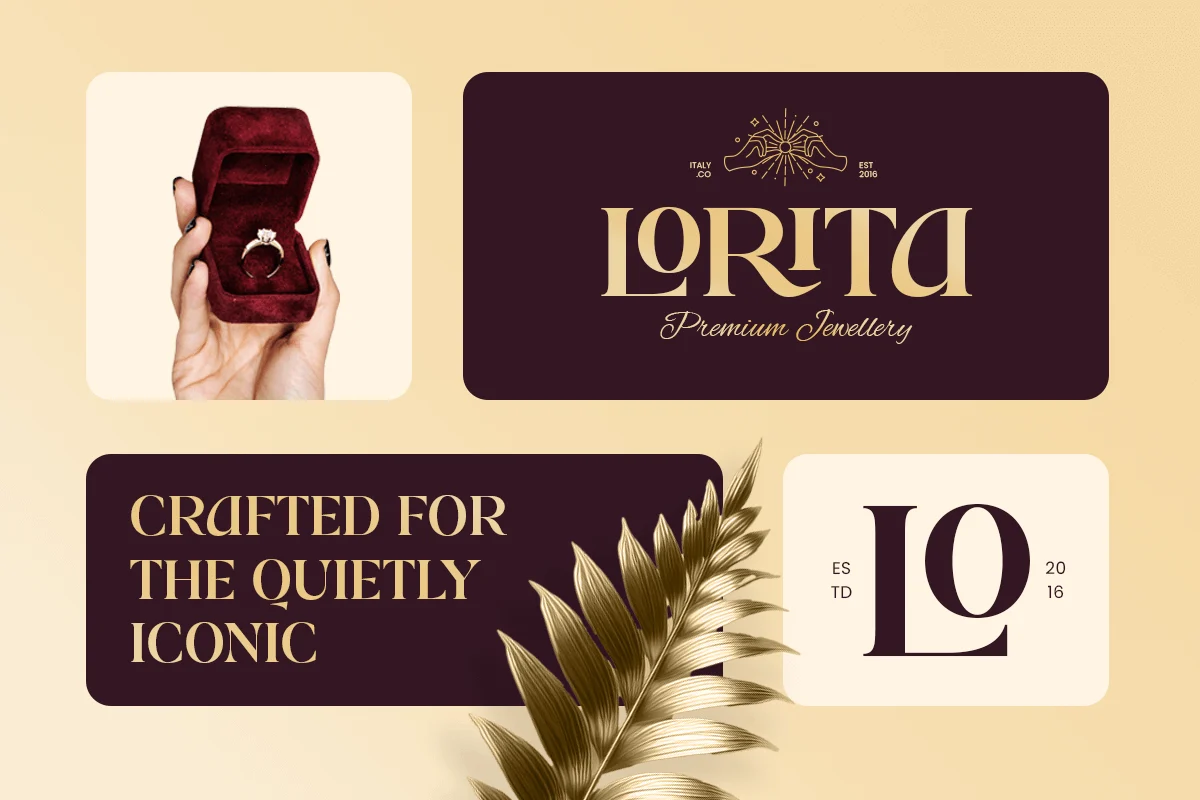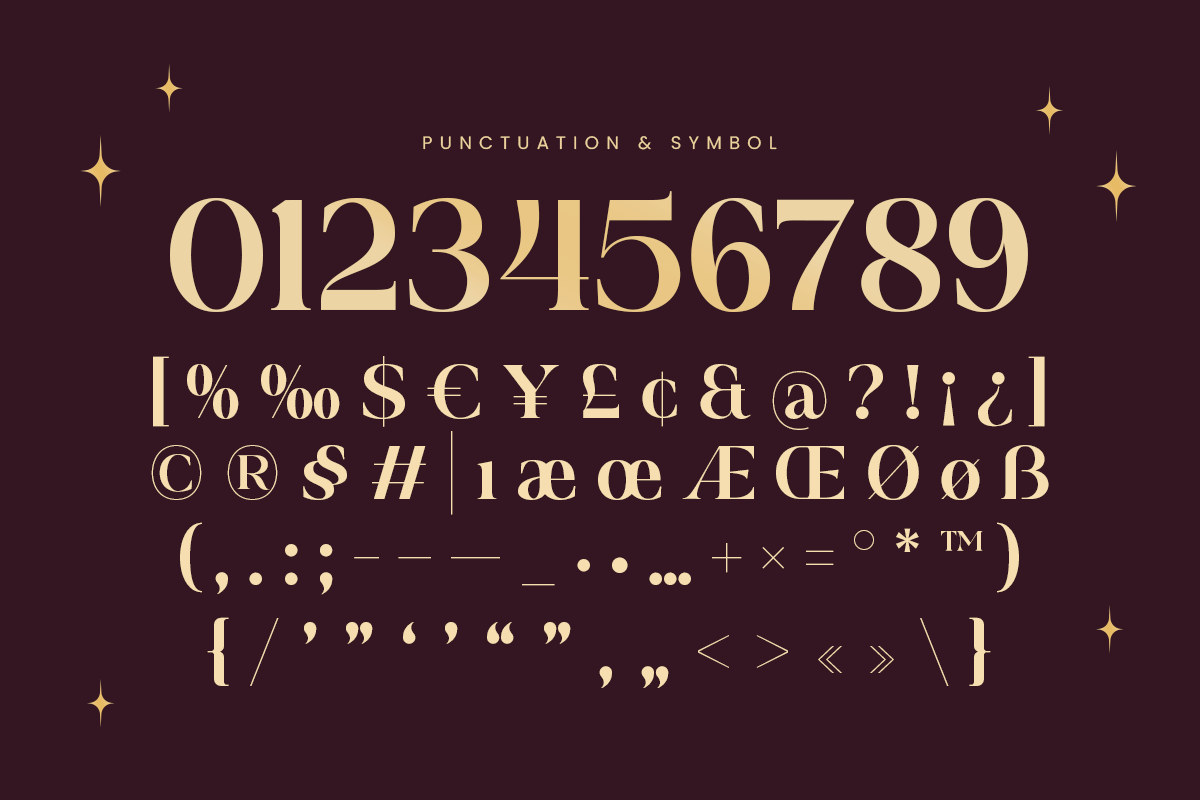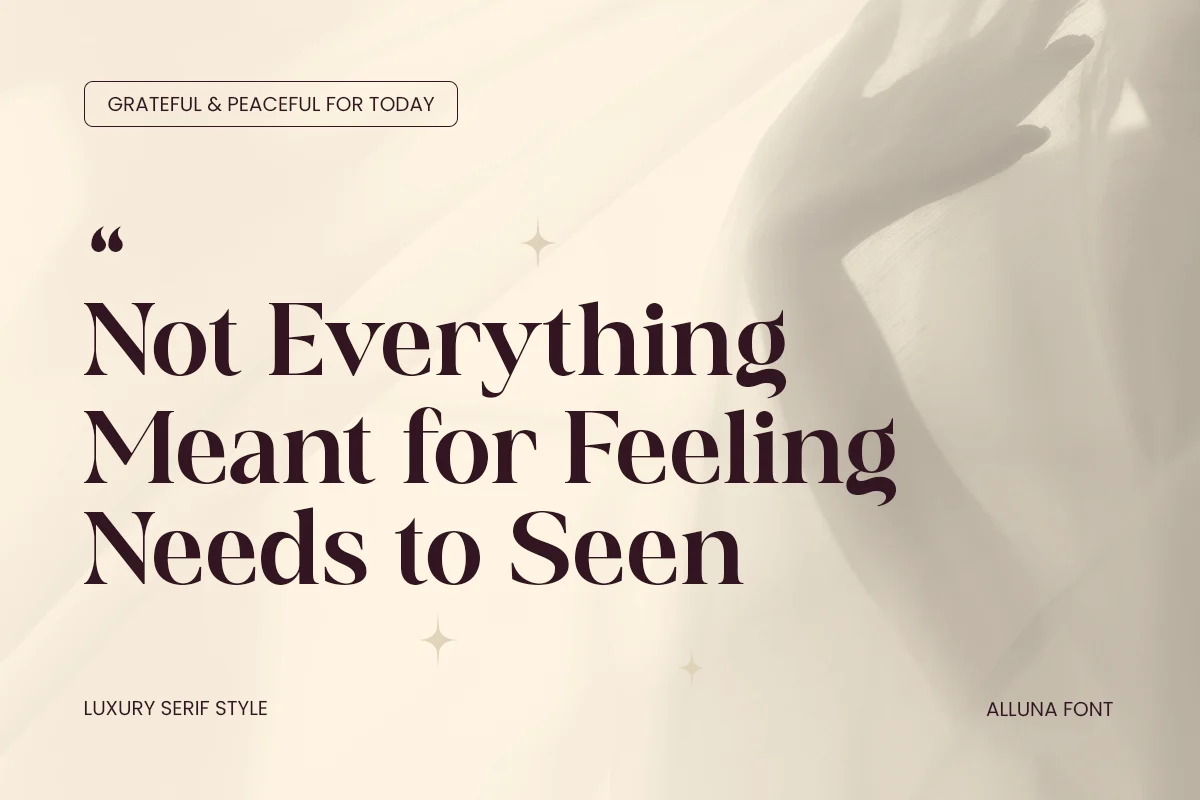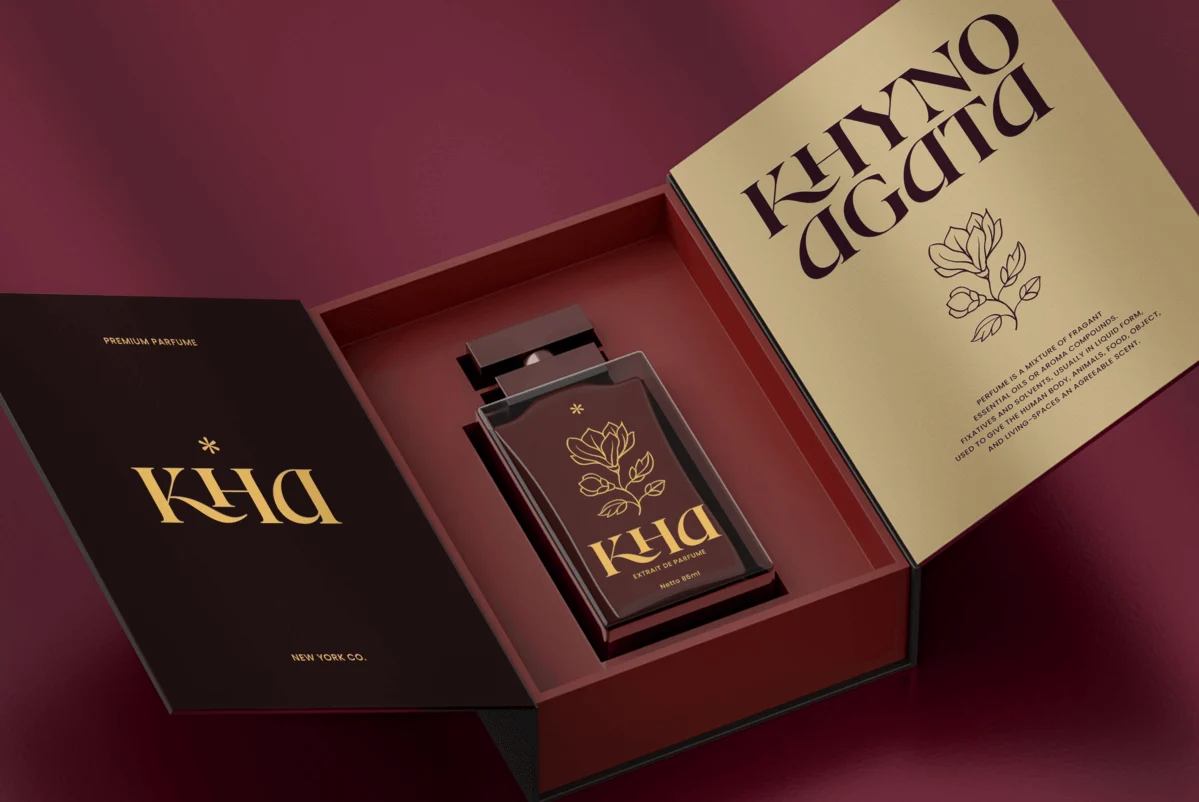
Alluna – Luxury Serif Font
Alluna is a luxury serif font designed to express elegance, sophistication, and timeless beauty. With its refined serif details, balanced contrast, and graceful proportions, Alluna is perfect for luxury branding, fashion logos, editorial layouts, wedding designs, packaging, and premium visual identities.
Created for brands that value class and exclusivity, Alluna blends classic serif tradition with a modern luxury touch. Its clean yet expressive character makes it ideal for high-end fashion labels, beauty brands, magazines, lifestyle products, and designers seeking a timeless and prestigious typographic style.
Alluna – Luxury Serif Font Features:
- Elegant luxury serif style with refined details
- Ideal for branding, logos, editorials, and premium design
- Balanced contrast for readability and elegance
- Perfect for classy, timeless, and high-end visual identities
Create a refined and lasting impression with Alluna – the luxury serif font made for timeless elegance.